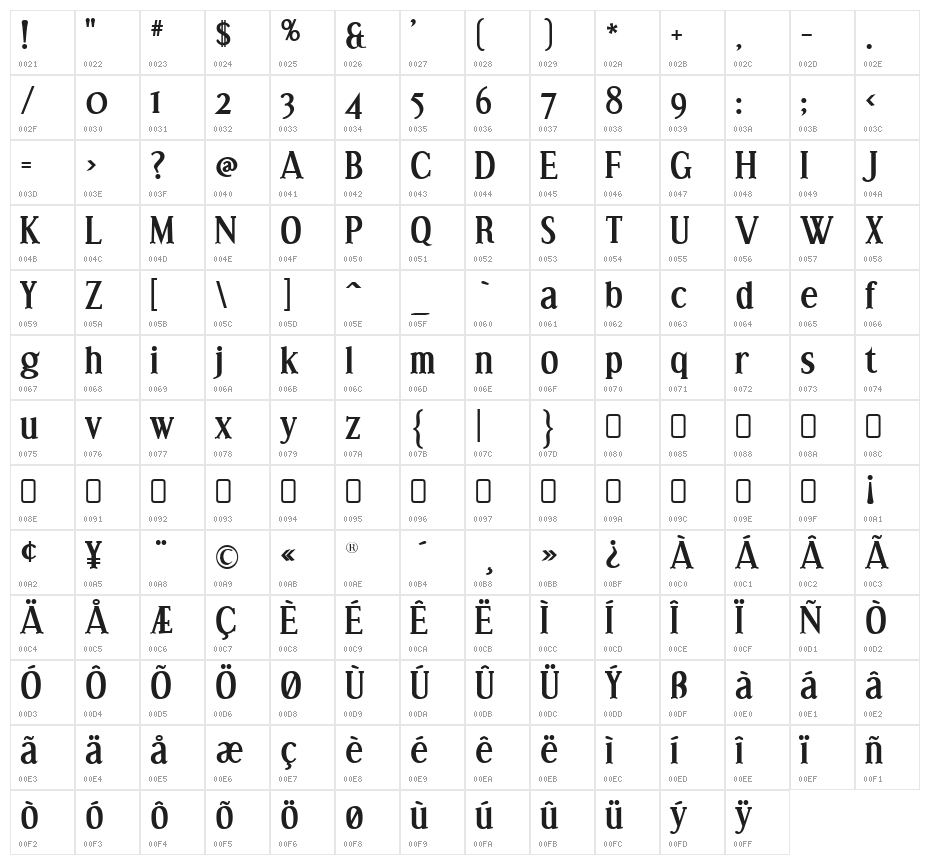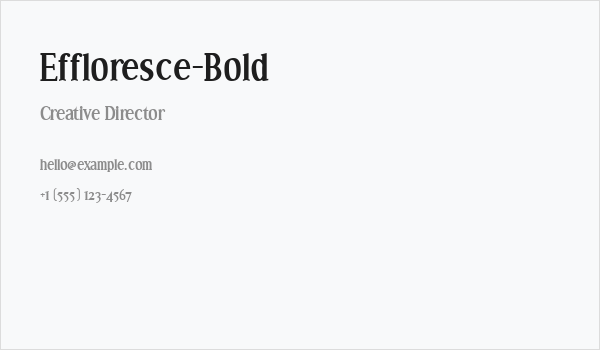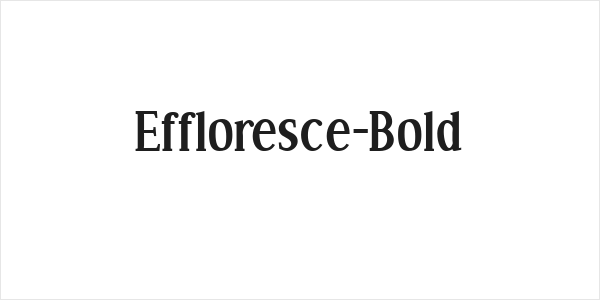
Effloresce-Bold Font
Effloresce-Bold Description
This font exhibits a bold and commanding presence with its strong serif features. The characters are well-defined, with a classic elegance that is both timeless and versatile. The uppercase letters are tall and prominent, while the lowercase letters maintain a consistent and harmonious flow. The numerals are clear and easily distinguishable, making them suitable for various applications. The special characters are crafted with precision, adding to the overall sophistication of the font. Its bold weight and high contrast in stroke thickness enhance its readability and impact, making it ideal for attention-grabbing headlines and titles.
| Proposed Projects | Ideal for book covers, editorial headlines, branding, and formal invitations. |